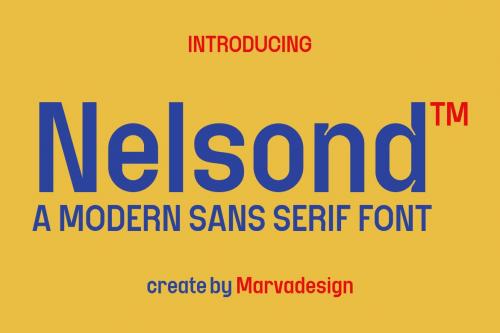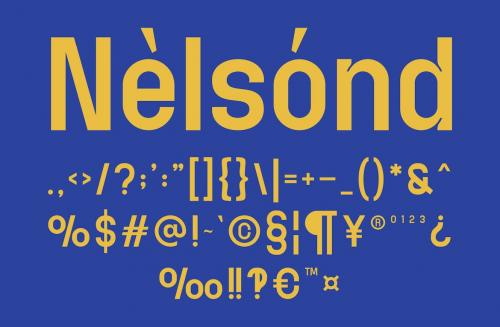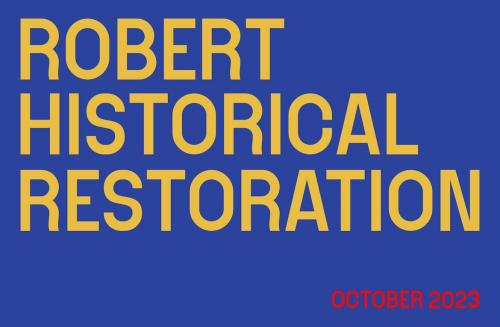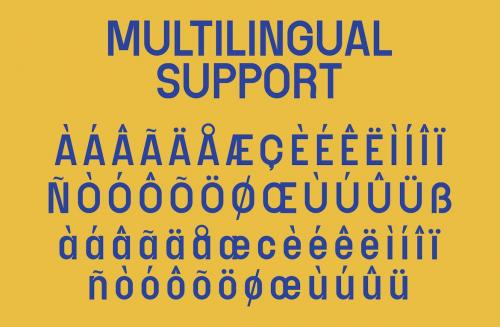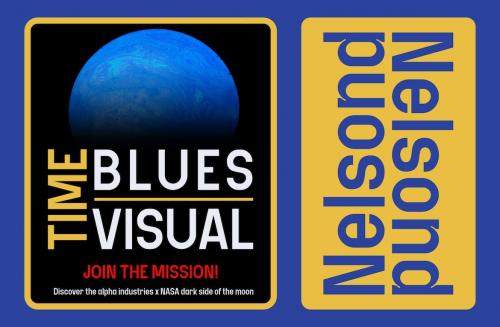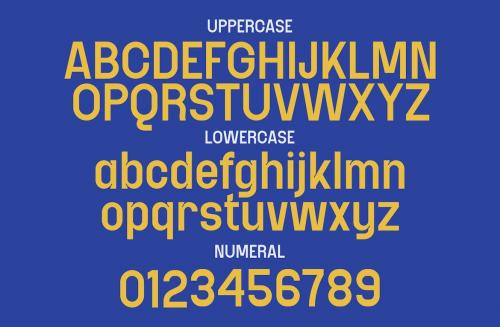
Nelsond Font
Introducing our new product **Nelsond Font** - Modern Font is a bold and authentic display font. The font is suitable for any branding project like logo, Template Design, Product and many more. outstanding in a wide range of contexts.
Introducing our new product **Nelsond Font** - Modern Font
**Nelsond Font** - Modern Font is a bold and authentic display font. The font is suitable for any branding project like logo, Template Design, Product and many more. outstanding in a wide range of contexts.